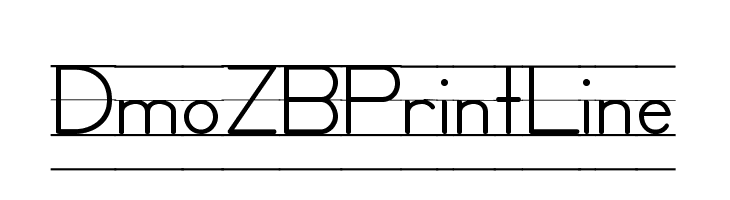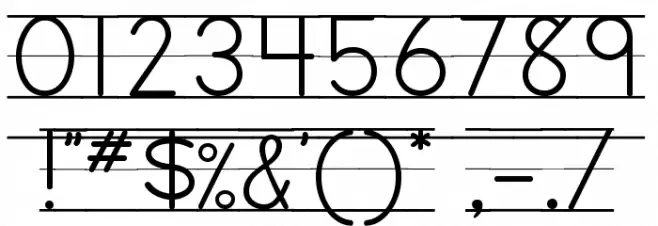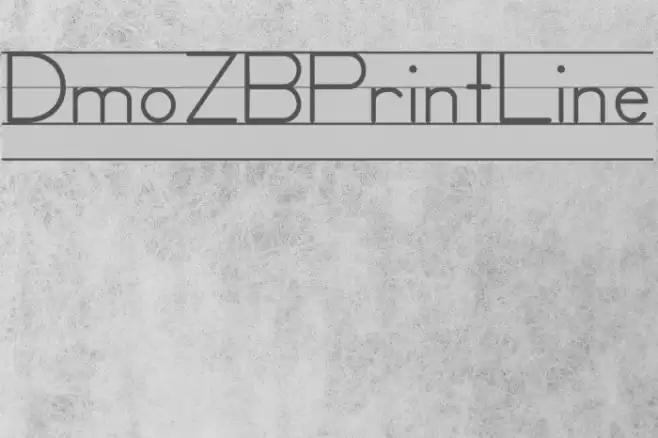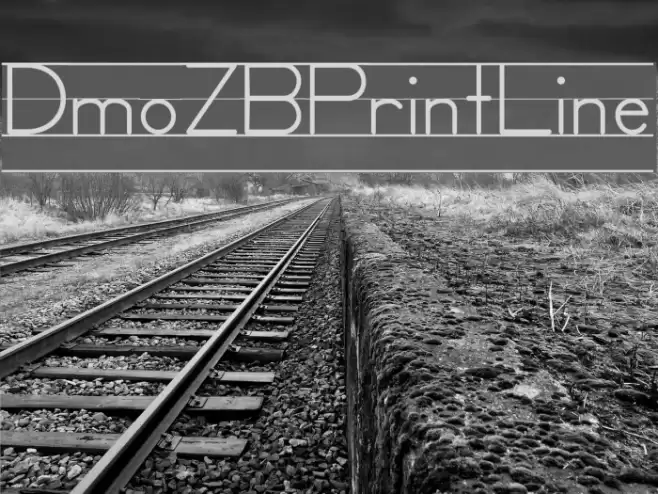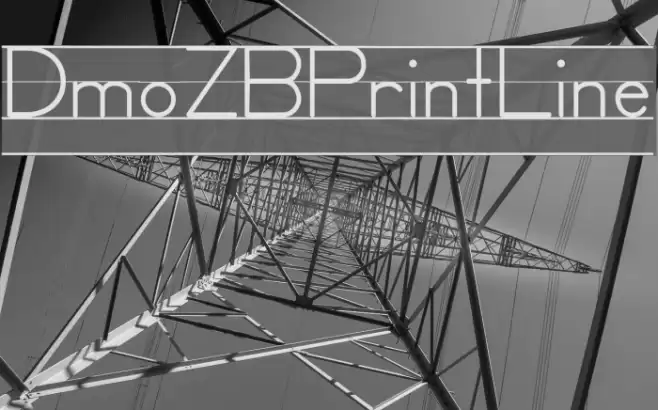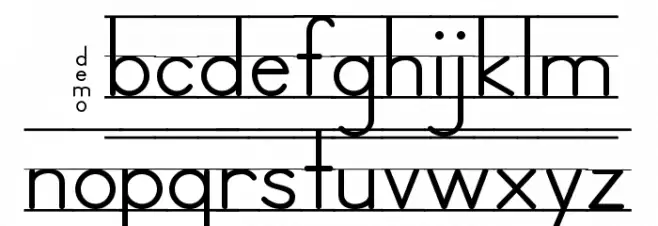
DmoZBPrintLine Font
DmoZBPrintLine Description
This font features a modern and clean design with a geometric structure. The uppercase letters are tall and narrow, with consistent stroke widths that give it a sleek appearance. The lowercase letters maintain a similar geometric style, with rounded edges that add a touch of softness. Numbers are clear and legible, making them suitable for various applications. Special characters are distinct and well-integrated into the overall design. The font's uniformity and precision make it ideal for contemporary projects that require a professional and polished look.
| Width | Condensed |
| Use Case | Headlines, Body text, Logos |
| Proposed Projects | Ideal for branding, editorial design, web design, and advertising materials. |